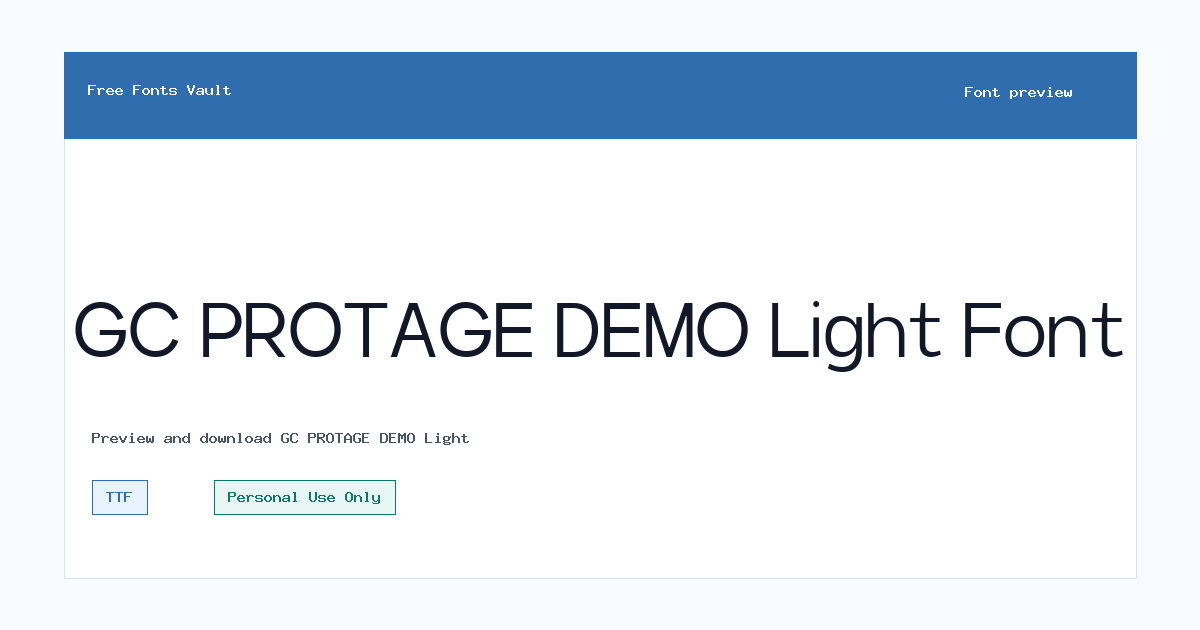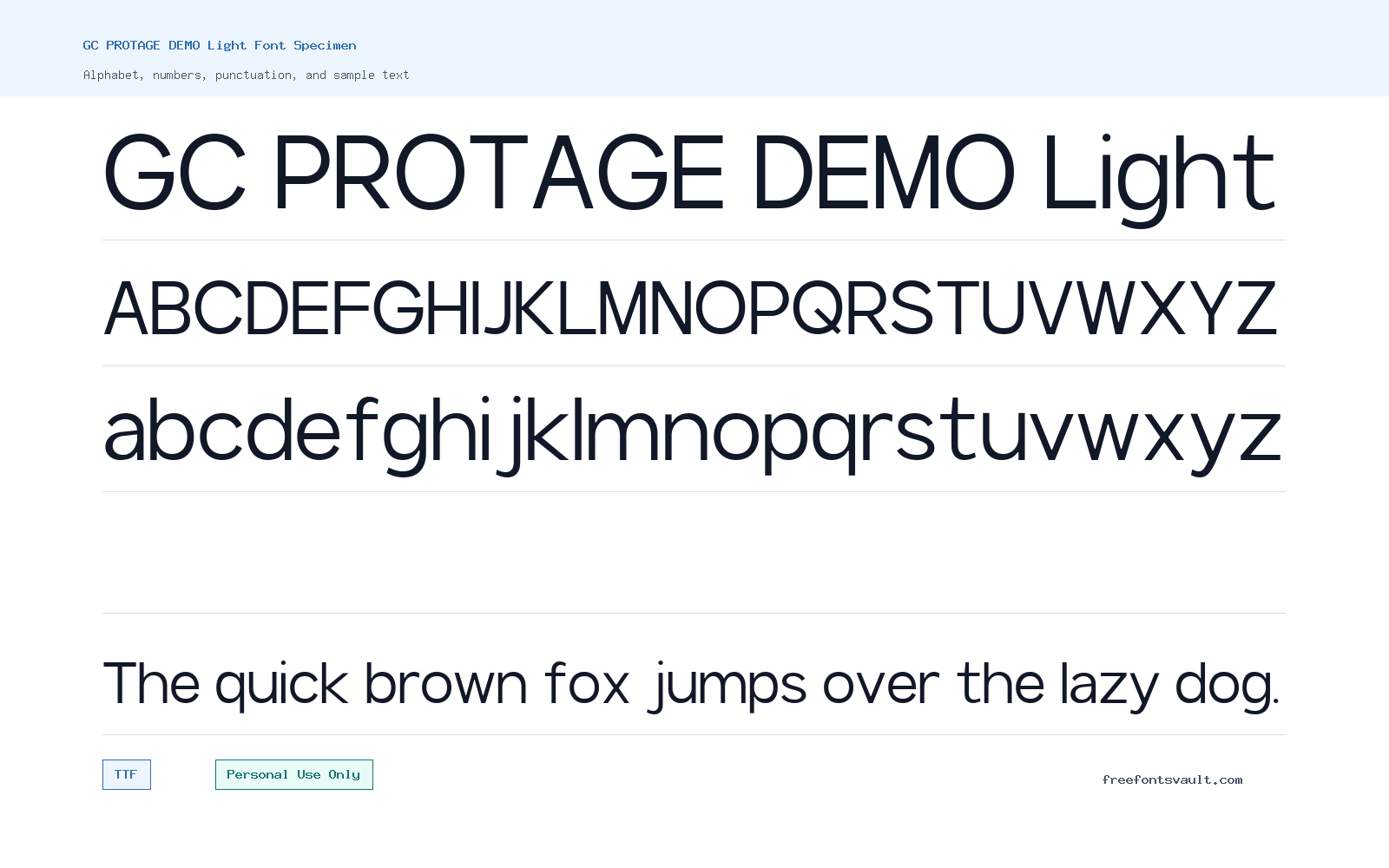
GC PROTAGE DEMO Light
GC PROTAGE DEMO Light Font
• Designer Dwi Indah Fadhilatul Amanah of Glyphonic
• Foundry Glyphonic
GC PROTAGE DEMO Light font.
GC PROTAGE DEMO Light is the light-weight demo style from the GC Protage sans serif family. It is a good choice to test when you want a clean, lighter text style for personal layouts, title experiments, branding drafts, or presentation mockups.
About GC PROTAGE DEMO Light
GC PROTAGE DEMO Light belongs to the GC Protage Sans Serif Font Family and uses a 300 light weight. That lighter weight gives the typeface a softer presence than a regular or bold cut, so it works best where the design needs space, restraint, and a modern sans serif feel. Use the preview box to test your own words before downloading, especially if you plan to use it for headings, short labels, or display text.
Because this is a demo light style, it is best treated as a trial font for personal design work rather than a finished commercial font package. Light fonts can look elegant at larger sizes, but they may lose strength when used too small, on low-contrast backgrounds, or in long body copy. Try it in a few sizes, check letter spacing, and compare it against a heavier weight if your design needs stronger readability.
• Light 300 weight from the GC Protage sans serif family
• Personal branding drafts, mood boards, and logo concept testing
• Minimal headings, social graphics, portfolio mockups, and clean layout experiments
GC PROTAGE DEMO Light is credited to Dwi Indah Fadhilatul Amanah of Glyphonic.
What kind of font is GC PROTAGE DEMO Light?
It is a light-weight sans serif demo font from the GC Protage family. The included style has a 300 weight, which is typically better for clean headings and short display text than dense body copy.
Where should I use this light weight?
Try it in personal posters, title layouts, social graphics, portfolio drafts, and brand concept mockups. Keep the text short and check contrast carefully.
Who designed GC PROTAGE DEMO Light?
The font is credited to Dwi Indah Fadhilatul Amanah of Glyphonic.